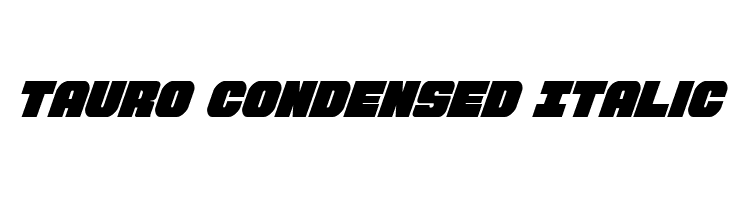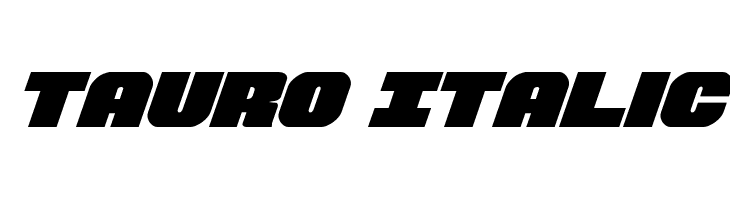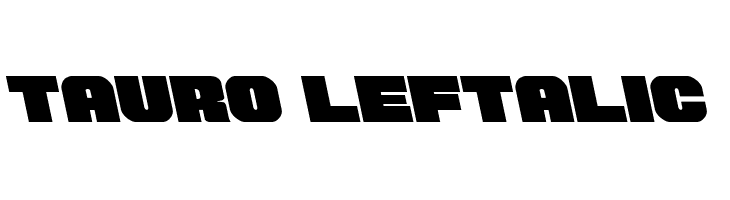
• Tauro 3D Italic
A bold, 3D italic font with a futuristic and dynamic style.
• Tauro 3D Regular
A bold, geometric 3D font with outlined characters and a modern, industrial style.
• Tauro Academy Italic
A bold, blocky font with a modern and impactful style.
• Tauro Academy Regular
A bold, blocky font with a strong, three-dimensional outline.
• Tauro Condensed
A bold, condensed font with a geometric and blocky style.
• Tauro Condensed Italic
Bold, condensed, and italicized font with a modern, dynamic style.
• Tauro Expanded
A bold, modern font with an industrial and expanded design, perfect for impactful headlines.
• Tauro Expanded Italic
A bold, expanded, and italicized modern font with a dynamic style.
• Tauro Italic
• Tauro Leftalic
A bold, modern font with a geometric and industrial style.